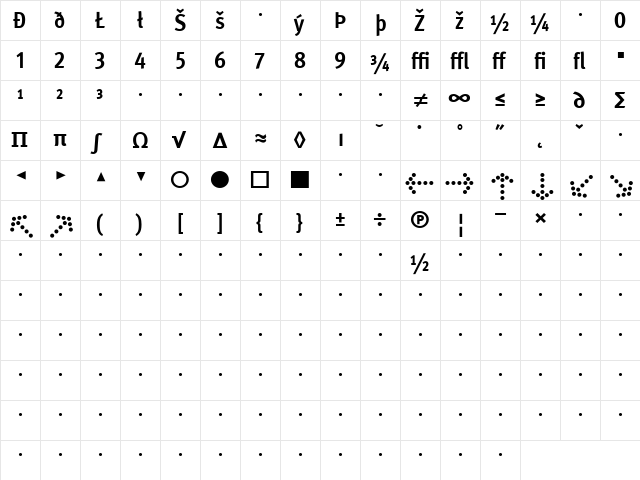
MetaCondBold Bold
Design Context for MetaCondBold Typeface
MetaCondBold takes a measured approach to typography — its balanced proportions and neutral character make it a reliable workhorse for both digital and print work. Its bold stroke weight gives it real presence on the page. Its narrow stance lets it pack a punch even in space-constrained designs.